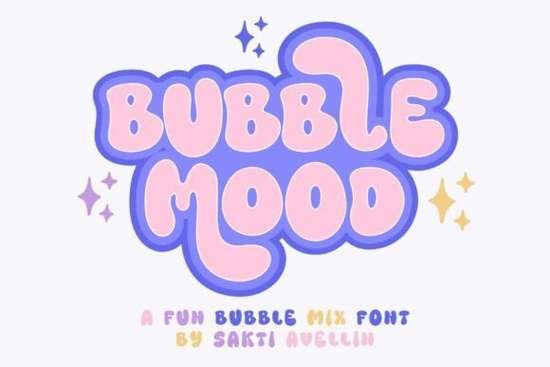
If you're looking for a font that brings a light, playful energy to your designs, Bubble Mood Font stands out as a thoughtful choice for anyone working with handmade goods, print-on-demand products, or personal creative projects. This handcrafted display typeface feels like a breath of fresh air each character shaped with care, giving your work a distinct personality. Whether you're designing t-shirts, mugs, tote bags, or even silicone items, Bubble Mood adds a cheerful touch that catches the eye without overwhelming the message.
What makes Bubble Mood Font unique?
Unlike many fonts that stick to rigid structures, Bubble Mood thrives when you mix uppercase and lowercase letters freely. That playful contrast creates rhythm and movement in your text like a little dance on the page. The rounded, bubbly shapes feel inviting and approachable, perfect for messages that aim to inspire, delight, or express individuality.
The font also includes alternative character blends, so you’re not limited to one style. These variations let you fine-tune the look depending on the project whether you want something bold and energetic or soft and whimsical. It’s especially useful when pairing text with illustrations or patterns, where the font can act as both a visual anchor and a mood setter.
How to use Bubble Mood in real-world projects
- T-shirts & hoodies: Use it for slogans, quotes, or names. The bouncy shape works well with casual, fun themes.
- Mugs & tumblers: Ideal for morning quotes or motivational phrases your customers will smile every time they pick up their drink.
- Tote bags & stationery: Great for small businesses or artists selling handmade goods. The font adds charm without needing extra graphics.
- Silicone items (phone cases, mats, etc.): Its clean lines adapt well to curved surfaces, making it a smart pick for digital design templates.
You don’t need advanced design skills to make these ideas work. Just pair the font with simple backgrounds or solid colors, and let the letterforms do the talking. For best results, avoid using too many other decorative elements Bubble Mood is already the star.
Where does Bubble Mood fit in your design toolkit?
If you’ve been exploring creative fonts for crafts and merch, you might have come across similar styles like Cinzel, Sunday Summer, or Western Bullhead. Each has its own vibe Cinzel for elegance, Sunday Summer for beachy vibes, Western Bullhead for rugged flair. But if you're after something lighter, more fluid, and full of charm, Bubble Mood fits right in.
It’s also worth considering how this font compares to others in the same category. While Shadow Block leans into strong, bold statements, Bubble Mood focuses on softness and motion. That difference matters when choosing the right tone for your brand or product line.
Final thoughts: Is Bubble Mood right for your next project?
If you value originality, simplicity, and a touch of joy in your designs, this font could be a great addition. It’s not flashy, but it’s memorable. It doesn’t demand attention it earns it through consistency and charm.
As you explore your options, remember that the best font is the one that matches your voice. Bubble Mood isn’t trying to be everything to everyone. Instead, it’s quietly confident in being exactly what it is: a friendly, expressive, hand-drawn typeface ready to bring life to your creations.